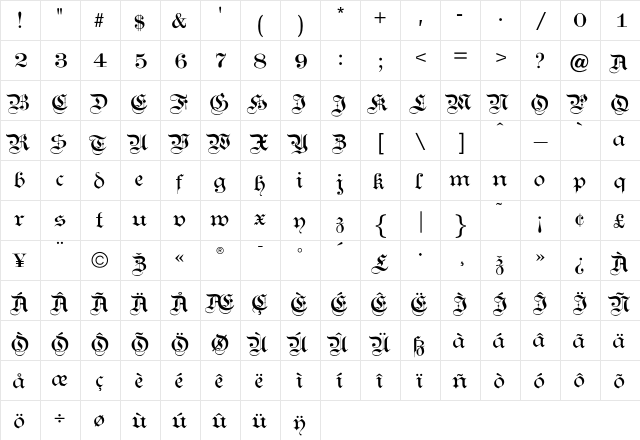
KanzleiLight Regular
| Foundry | Digitized by Dan X. Solo. Software Dover Publications, Inc |
Design Context for KanzleiLight Typeface
KanzleiLight takes a measured approach to typography — its balanced proportions and neutral character make it a reliable workhorse for both digital and print work. The delicate stroke weight brings airiness and refinement to layouts.